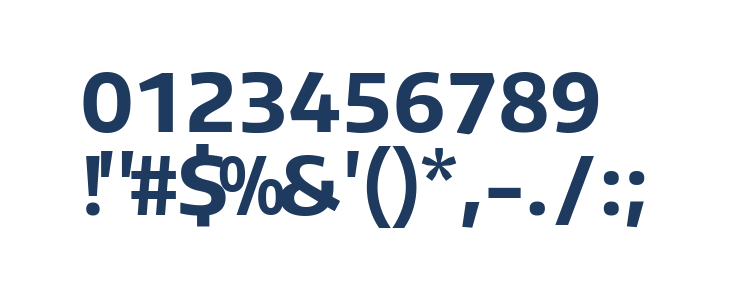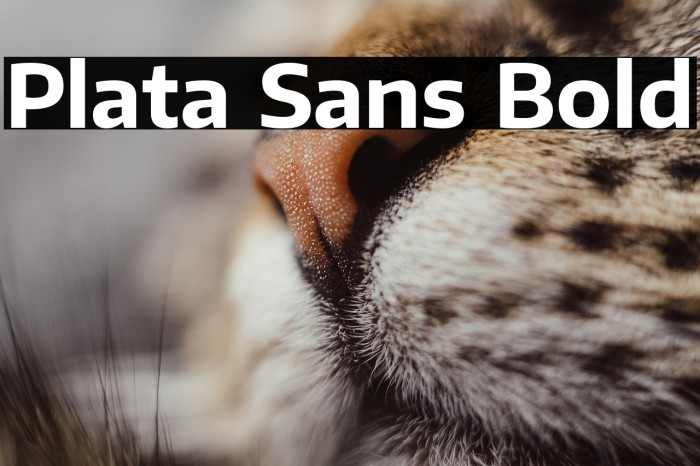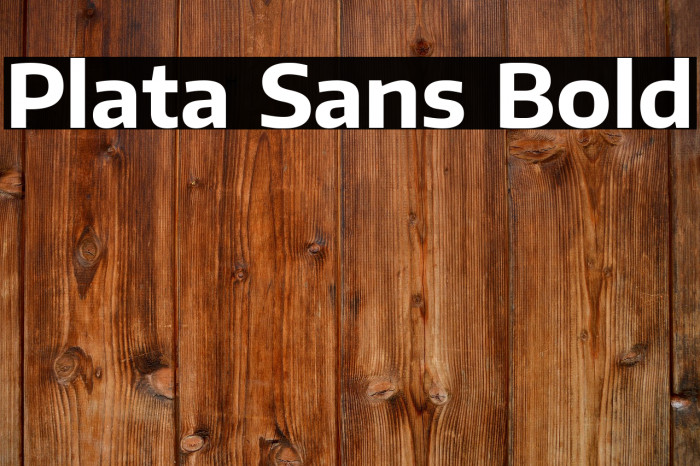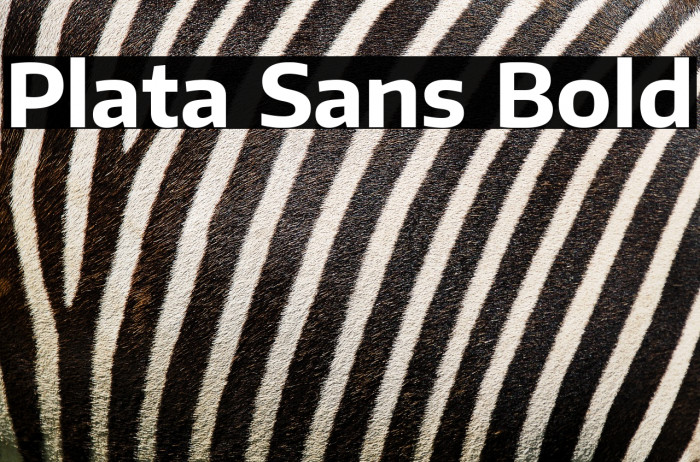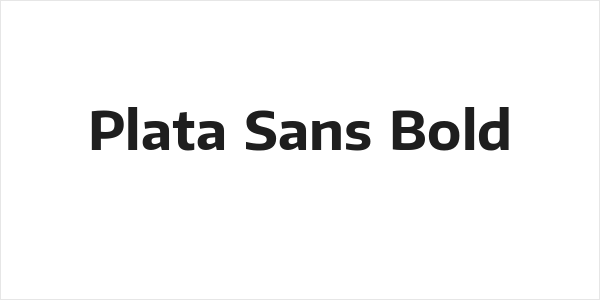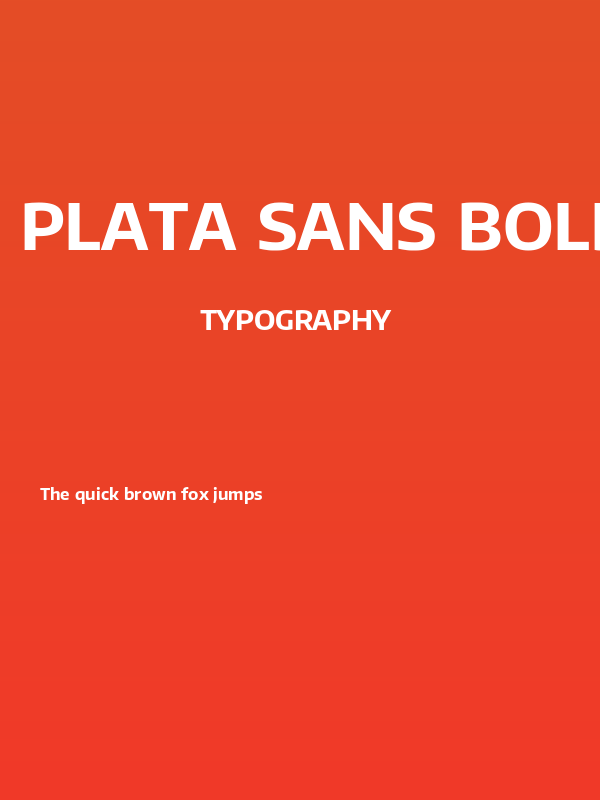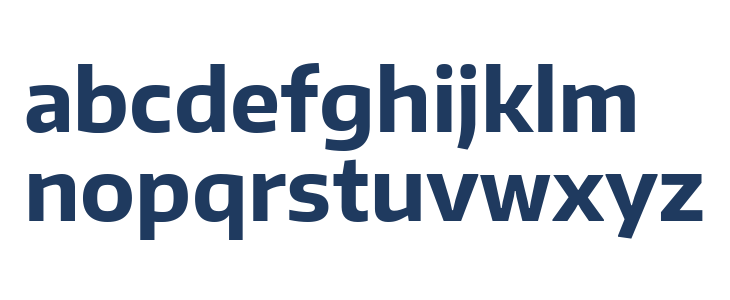
Plata Sans Bold Font
Plata Sans Bold Description
This font features a bold and clean sans-serif style, characterized by its strong and uniform strokes. The letters are well-proportioned with a modern aesthetic, making it highly legible across various sizes. The uppercase and lowercase letters maintain a consistent weight, providing a balanced appearance. The numerals are clear and distinct, ensuring readability. Special characters are designed with precision, complementing the overall style. This font's simplicity and clarity make it versatile for numerous applications.
| Use Case | Headlines, Logos, Digital Interfaces |
| Proposed Projects | Ideal for branding, advertising, headlines, and digital interfaces where clarity and impact are essential. |